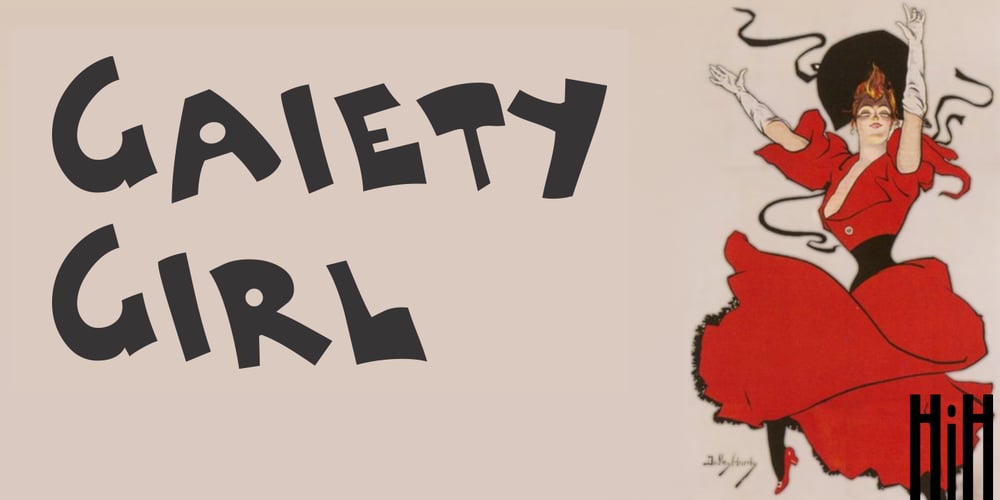
Gaiety Girl Font Family was designed by Dudley Hardy and published by HiH. Gaiety Girl contains 2 styles and family package options. Gaiety Girl and Gaiety Girl Inclined are based on the poster lettering of English artist Dudley Hardy. Hardy was one of the best of the English poster designers of the 1890s. Although he is not known to have designed a formal typeface as such, he developed a distinctive lettering style that he used, with variations, on most of his posters. This font family is inspired by that style, drawing from several of his posters. It is named after his well-known 1894 poster for the musical comedy A GAIETY GIRL.